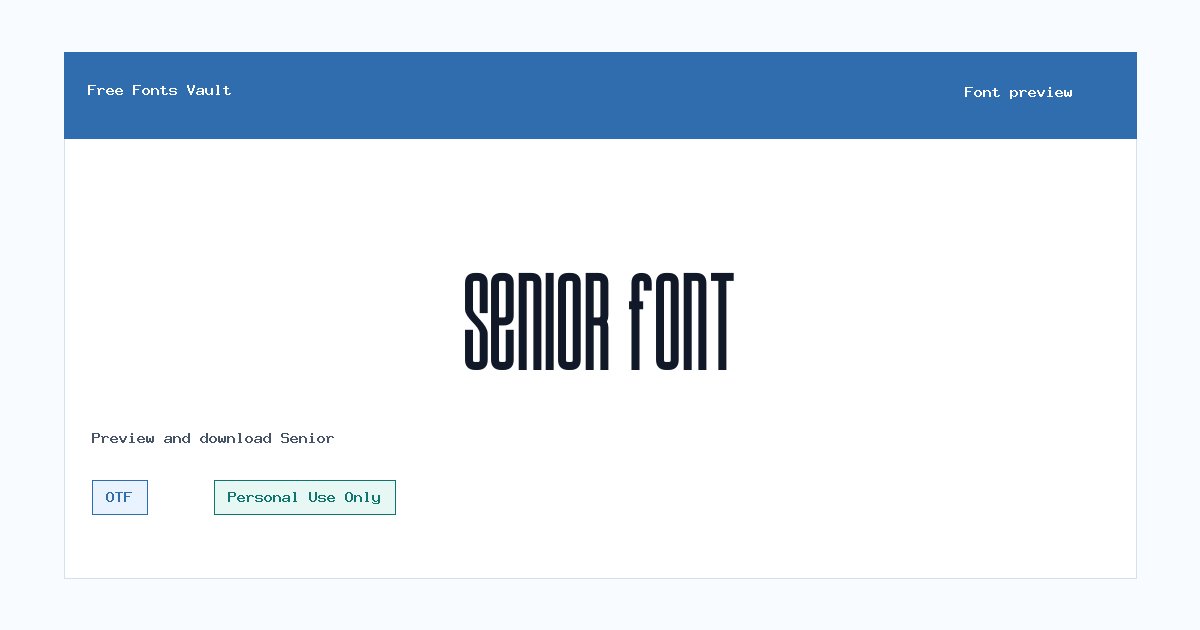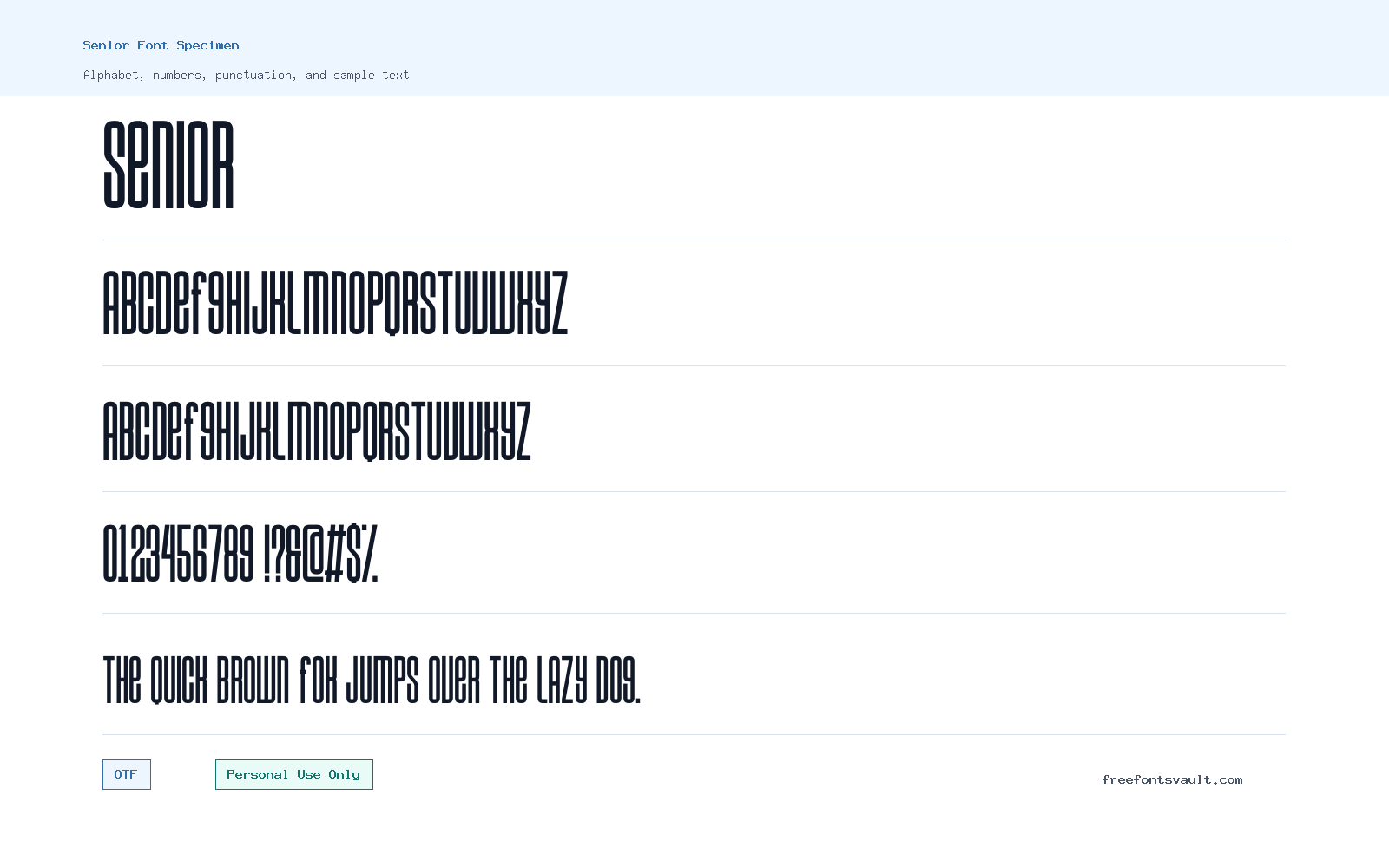
Senior
Senior font preview showing the family name
Senior Font
Senior font specimen showing alphabet, numbers, and sample text
Senior font.
Senior is a condensed sans serif font with a futuristic edge, suited to short display text where you want a narrow, clean, tech-focused look. It is offered as an OTF regular style and is marked for personal use only, so treat it as a trial or non-commercial font unless you have a separate commercial license.
Senior works best when the design needs compact lettering with a modern sci-fi feel. The narrow structure can help a title fit into tight spaces while still feeling deliberate, which makes it useful for posters, thumbnails, headers, gaming-style graphics, event artwork, and web mockups. Because the family information points to a single regular weight, it is best to build contrast with size, spacing, color, and supporting fonts rather than expecting multiple weights to carry the layout.
• Condensed sans serif style with a futuristic display feel
• Best suited to short headings, titles, and graphic design text rather than body copy
• Sci-fi posters, gaming graphics, tech-themed headers, and music or event artwork
• Logo concept sketches, personal branding experiments, and portfolio mockups
• Website hero text, app mockups, UI presentation boards, and social media title graphics
• Compact display layouts where a narrow sans serif helps save horizontal space
For the best result, use Senior at display sizes and keep the text short. Add a little letter spacing for all-caps titles, pair it with a simple neutral sans serif for body text, and avoid using it for dense paragraphs. In web mockups, test the OTF file in the actual heading size you plan to use, especially on mobile screens. For logo work, use it for concept exploration first, then confirm the license and modify spacing carefully so the wordmark feels balanced.
What kind of font is Senior?
Senior is a condensed sans serif display font with a futuristic or sci-fi feel. It is better for titles and short graphic text than for long reading text.
What should I pair with Senior?
Pair Senior with a plain, readable sans serif for body copy. Let Senior handle headings or key words, then use the supporting font for descriptions, navigation, and longer text.
Is Senior good for posters?
Yes, it can work well for poster titles, especially when the design needs a compact modern look. Test spacing and contrast so the narrow letters stay readable from a distance.